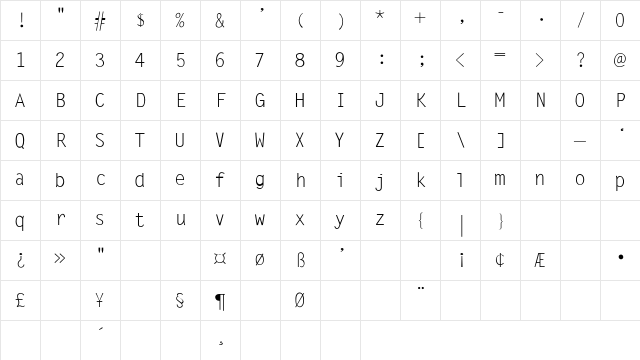
LetterGothic-Thin Regular
Complete LetterGothic-Thin Regular glyph index. Displaying only characters natively supported by LetterGothic-Thin Regular font.
Design Context for LetterGothic-Thin
LetterGothic-Thin takes a clean, functional approach - its unadorned letterforms prioritise legibility and work reliably across screen and print environments. Its slender proportions lend an understated elegance to any composition.
Font Pairing: Pair LetterGothic-Thin with a medium or bold serif for headlines - the weight contrast creates an elegant, high-end feel.
Pro Tip: Use LetterGothic-Thin with generous tracking and line-height for the most luxurious effect - light sans-serifs reward spacious, considered layouts.